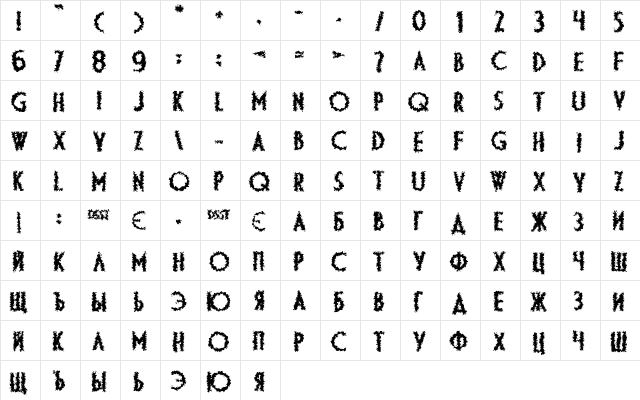
DS Diploma Art Bold
| Foundry | DSST |
| Designer | Dubina Nikolay |
Design Context for DS Diploma Art Typeface
DS Diploma Art is a composed and adaptable typeface that performs quietly and consistently across a wide range of design contexts. The heavy weight commands attention and anchors typographic hierarchies.